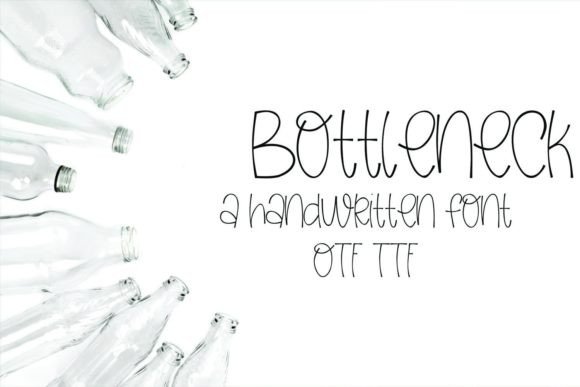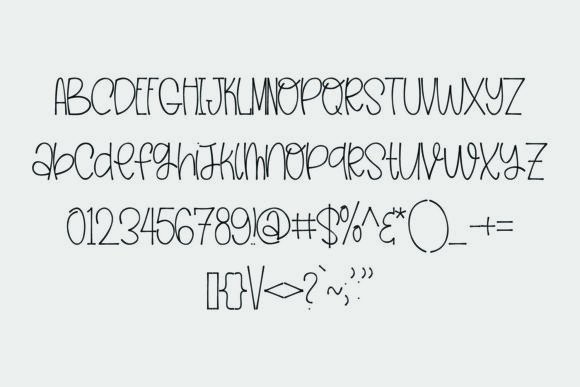
Bottleneck Font
About Bottleneck Font
**Bottleneck: A Fun and Casual Handwritten Font**
Introducing **Bottleneck**, a playful and casual handwritten font that adds a sense of fun and versatility to your design ideas. With its relaxed and approachable style, this font is a fantastic choice for a wide range of creative projects.
**Bottleneck** stands out with its carefree and handwritten letterforms, exuding a sense of spontaneity and creativity. Its casual strokes and friendly script create an immediate connection with your audience, making it an excellent choice for projects that demand a lighthearted and approachable tone.
This font’s versatility shines through, making it suitable for a broad range of applications. Whether you’re working on branding, social media posts, invitations, posters, or any other creative endeavor, **Bottleneck** brings a playful and adaptable flair to your work.
In branding and social media, **Bottleneck** ensures your content has a relaxed and engaging appearance, making it relatable and resonating effectively with your audience.
For invitations and posters, this font adds a friendly and approachable touch, making your designs more inviting and relatable.
In conclusion, **Bottleneck** is more than just a font; it’s a versatile design tool that brings a sense of fun and approachability to your creative projects. Whether you’re designing for digital or print, choose **Bottleneck** to infuse your work with its carefree and friendly charm. Embrace its casual appeal, and let your creativity flow freely with a touch of playfulness.